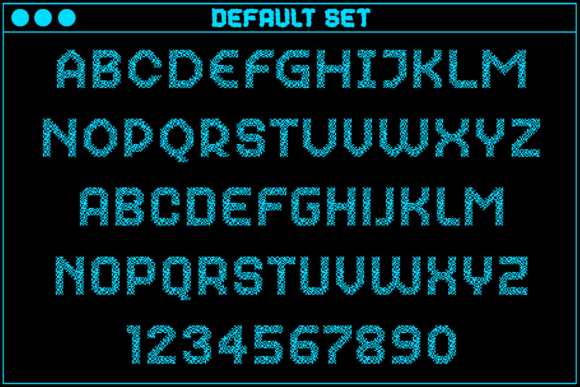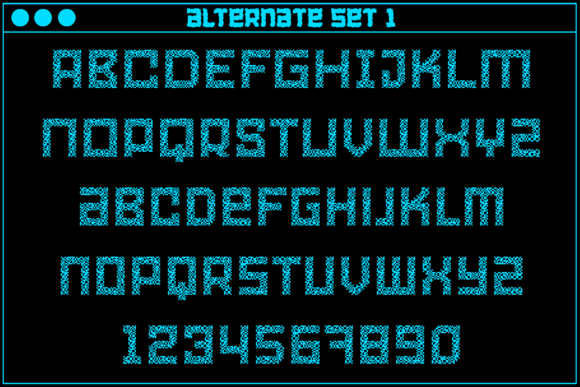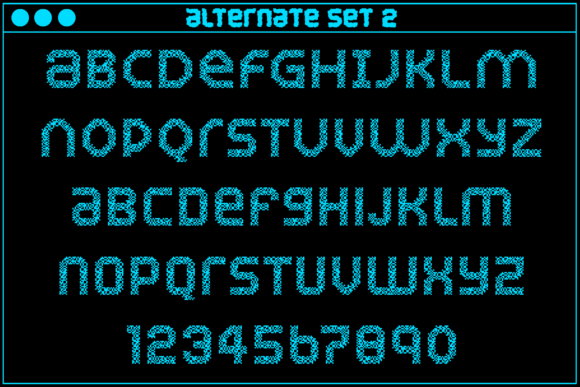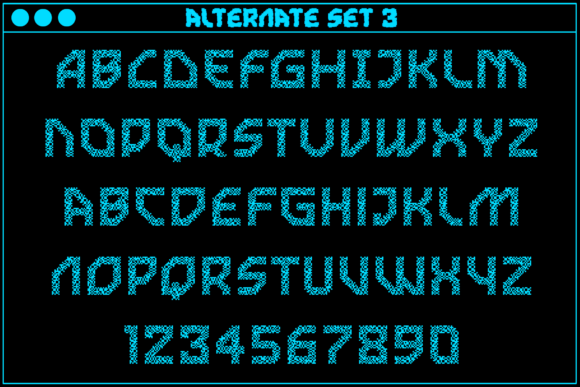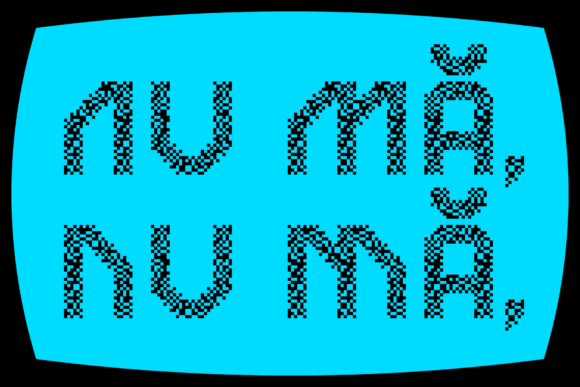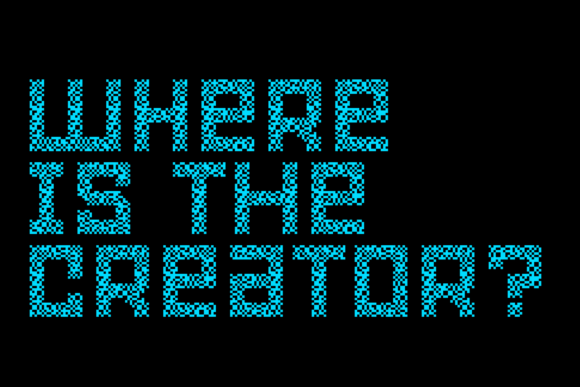
Unlocking the Potential of Your Next Creative Project with MultiType Glitch Error Font
Have you ever stared at a blank canvas, waiting for the perfect font to bring your design to life? For many of us, that moment of inspiration is what drives our creative process. It’s the spark that sets off a chain reaction of ideas and possibilities. And for designers seeking that unique edge, the MultiType Glitch Error Font is sure to be a game-changer.
This free download is more than just a trendy addition to your design arsenal – it’s a high-quality resource that can elevate your creative project to the next level. With its distorted, pixelated aesthetic and transparent background, the MultiType Glitch Error Font is the perfect tool for adding a touch of edginess to your designs.
- Unique Glitch Effect: The MultiType Glitch Error Font features a distinctive glitch effect, perfect for creative projects that require a touch of digital decay.
- Perfect for Creative Projects: The MultiType Glitch Error Font is ideal for creative projects that require a unique and eye-catching design, such as music albums, video games, and futuristic-themed designs.
I recently had the opportunity to try out the MultiType Glitch Error Font, and I must say it’s been a wild ride. This font is perfect for any creative project that requires a touch of edginess and industrial chic.
- ⚠️ Limited character set: While the font is free, it’s not a full-fledged font family, and the character set is somewhat limited.
- ⚠️ Not ideal for body text: Due to its glitchy nature, the font can be quite difficult to read in large blocks of text.
Overall impression: The MultiType Glitch Error Font is a great addition to any designer’s toolkit. While it may not be suitable for every project, it’s perfect for those times when you need to add a bit of visual interest and edginess to your design. And at no cost, it’s definitely worth checking out!
The MultiType Glitch Error Font is a high-quality, free download design resource ideal for creative projects requiring a unique and eye-catching visual style. This font features a transparent background, making it easy to use in a variety of design applications.
The MultiType Glitch Error Font is ideal for creative projects such as:
Technology and gaming websites
Graphic design and digital art
Presentations and documents requiring a unique visual style
Compared to MultiType Glitch Error Font, Pixelated Panic Font offers a more pixelated and distorted appearance, making it perfect for projects that require a strong, futuristic feel.